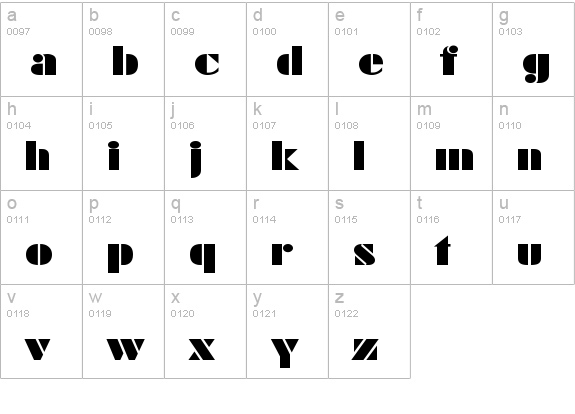
DekoBlackExtendedSerial-Regular is the standard, neutral variant in the DekoBlackExtendedSerial typeface family \xE2\x80\x94 well suited to general body text, paragraphs, and standard typographic work.
DekoBlackExtendedSerial-Regular is a modern and striking font that exudes confidence and sophistication. With its bold and extended design, this font is perfect for making a statement in headlines, posters, and branding materials. The sharp edges and clean lines of DekoBlackExtendedSerial-Regular give it a sleek and contemporary look that is sure to catch the eye. Best of all, DekoBlackExtendedSerial-Regular is available for free download at FontsMarket.com. Whether you're a designer looking to add a touch of flair to your projects or a business in need of a strong and impactful font for your marketing materials, DekoBlackExtendedSerial-Regular is the perfect choice. Download it today and elevate your designs with this stylish and versatile typeface.